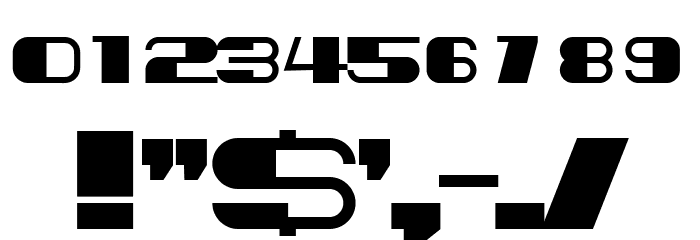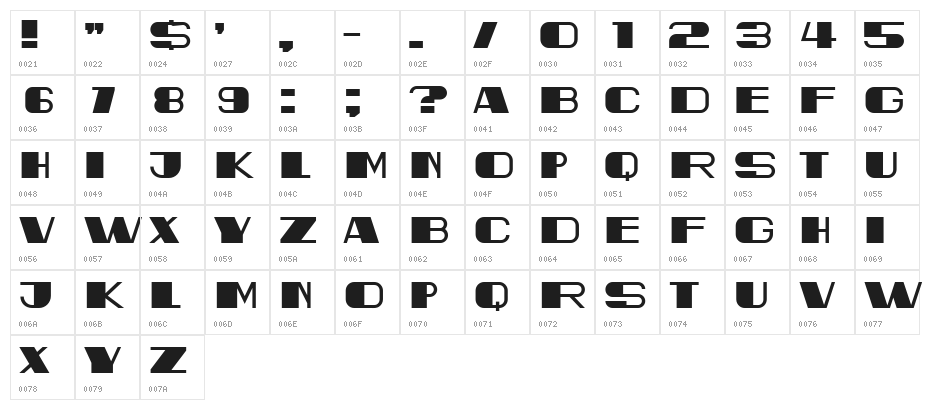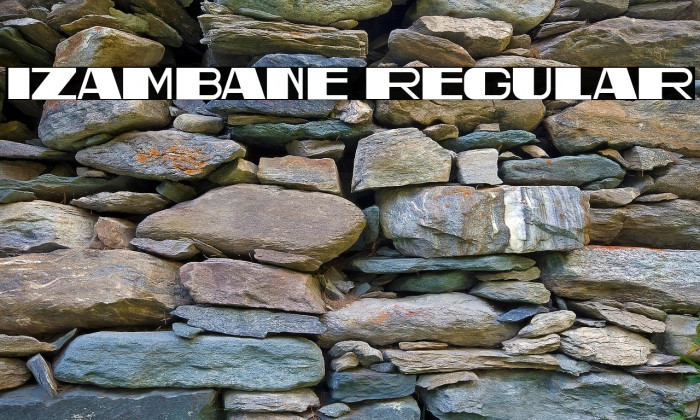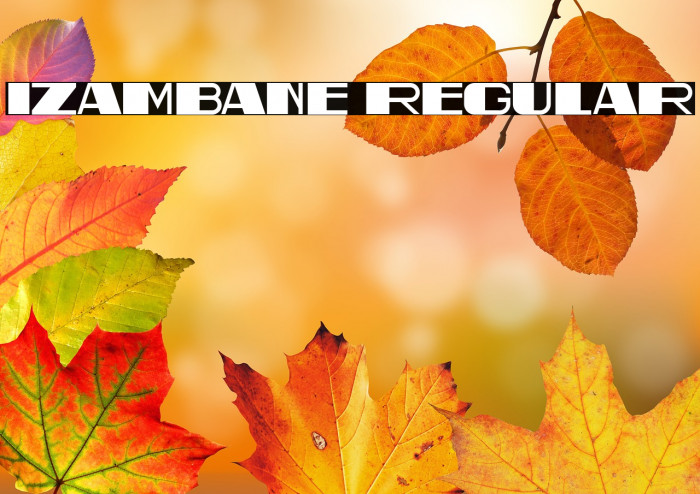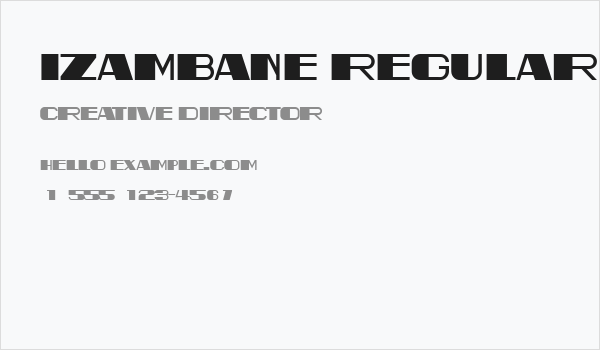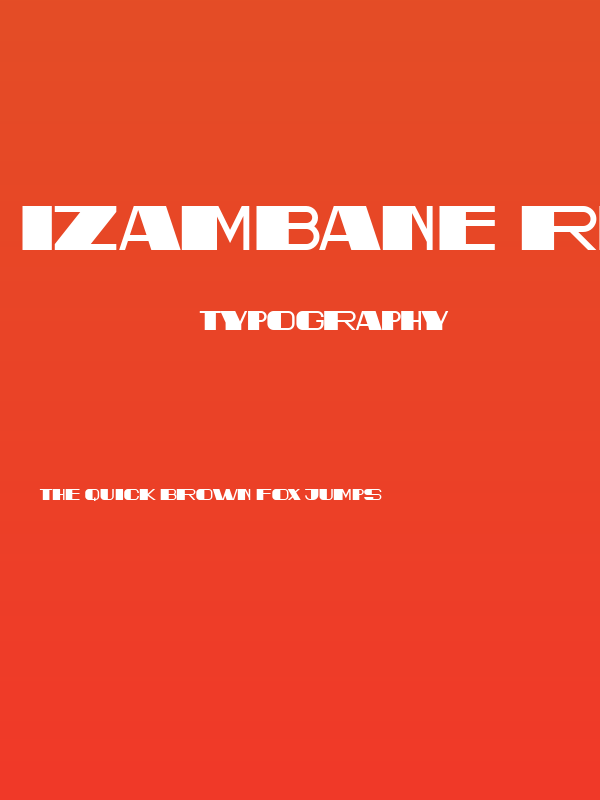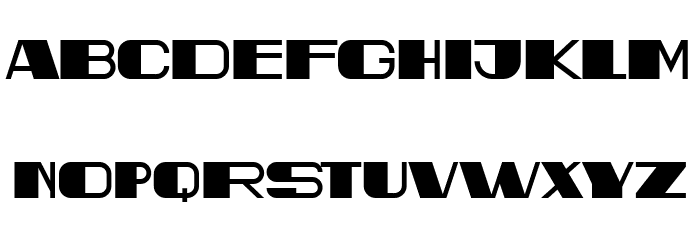
Izambane Regular Font
Izambane Regular Description
This font features a bold, geometric design with a futuristic and industrial feel. The characters are constructed with strong, angular lines and a high level of contrast between thick and thin strokes. The uppercase letters are particularly striking, with unique cutouts and sharp edges that create a dynamic visual impact. The numbers and special characters maintain this bold aesthetic, making them suitable for attention-grabbing designs. The overall style is modern and assertive, perfect for projects that require a strong visual presence.
| Overall Style | Modern, Futuristic |
| Proposed Projects | Ideal for branding, posters, headlines, and any design that requires a strong, modern aesthetic. |